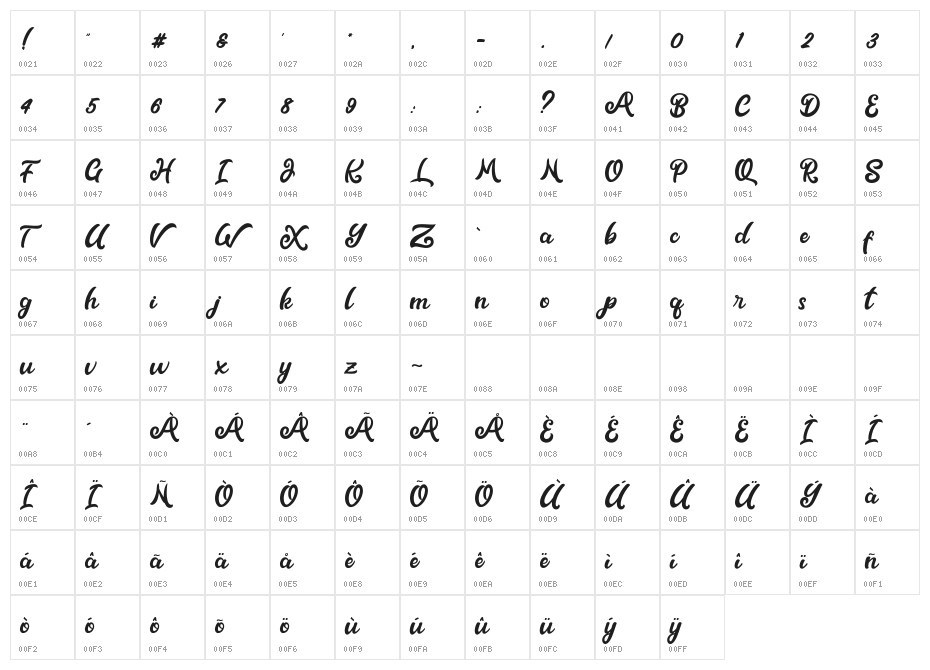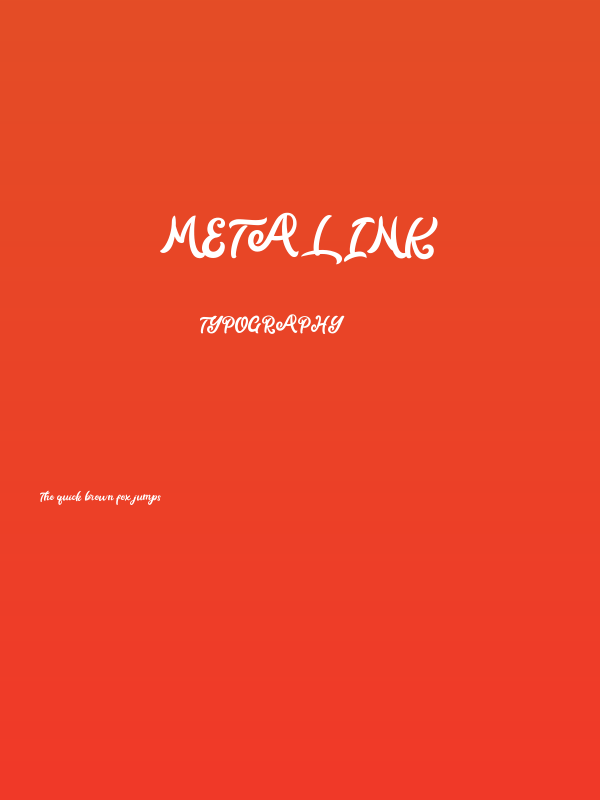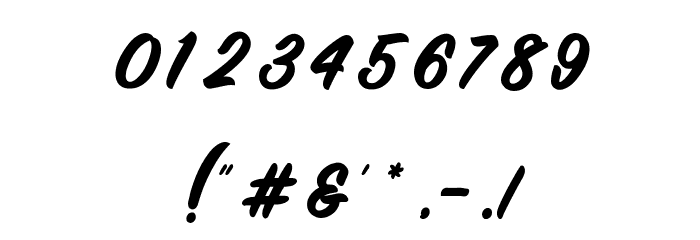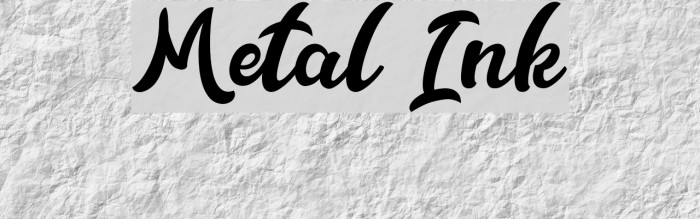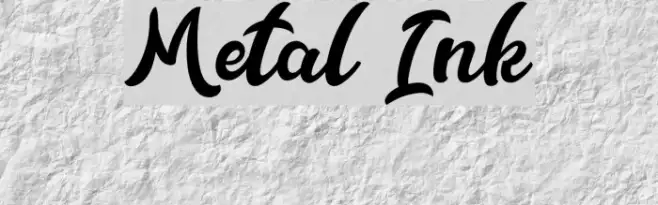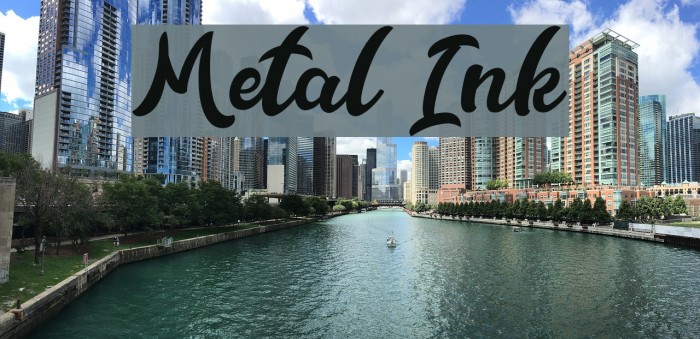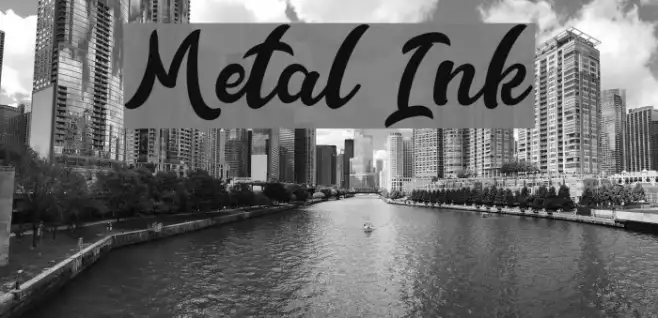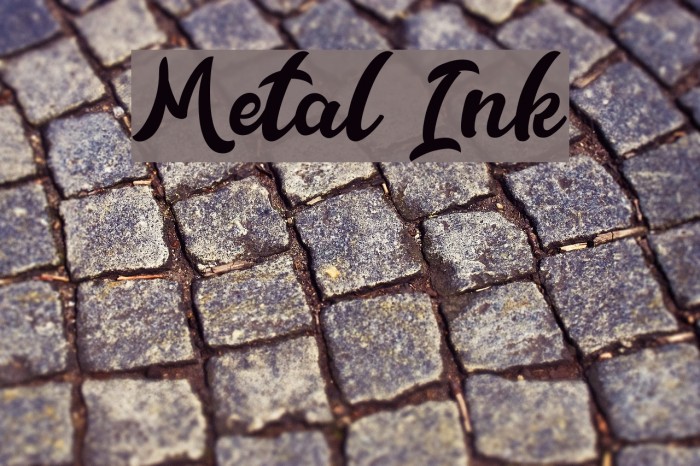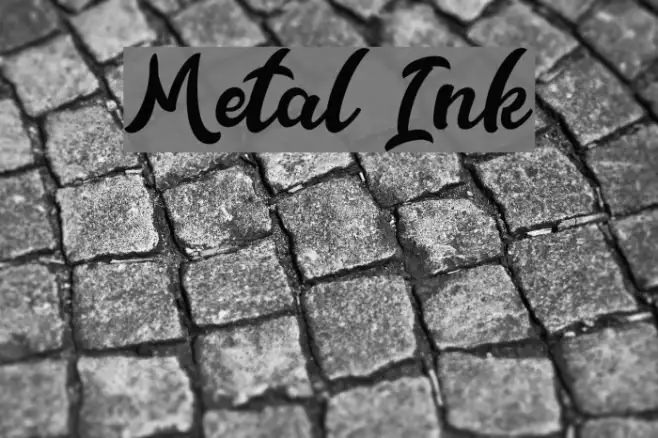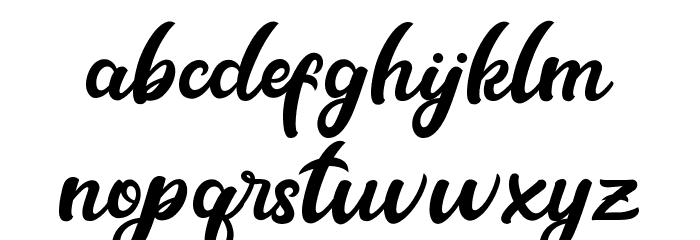
Metal Ink Font
Metal Ink Description
This font features a bold, flowing script style that exudes elegance and sophistication. The characters are intricately designed with smooth curves and a consistent stroke width, giving it a cohesive and polished appearance. The uppercase letters have a distinct flair, with some characters incorporating unique loops and swirls that add a decorative touch. The lowercase letters maintain a harmonious flow, making it ideal for creating visually appealing text. The numerals and special characters are crafted to match the overall aesthetic, ensuring a seamless integration into any design project.
METAL-INK UPPERCASE
METAL-INK LOWERCASE
METAL-INK OTHER CHARS
| Proposed Projects | Ideal for wedding invitations, branding, logo design, and elegant stationery. |